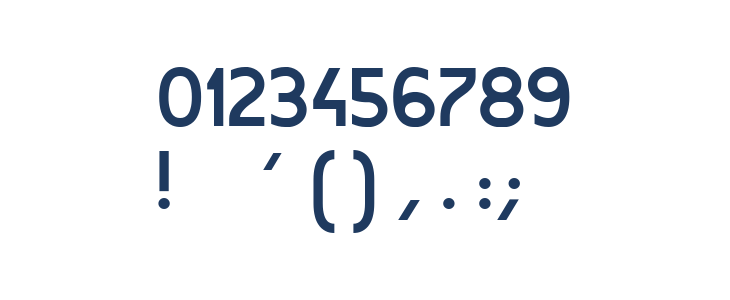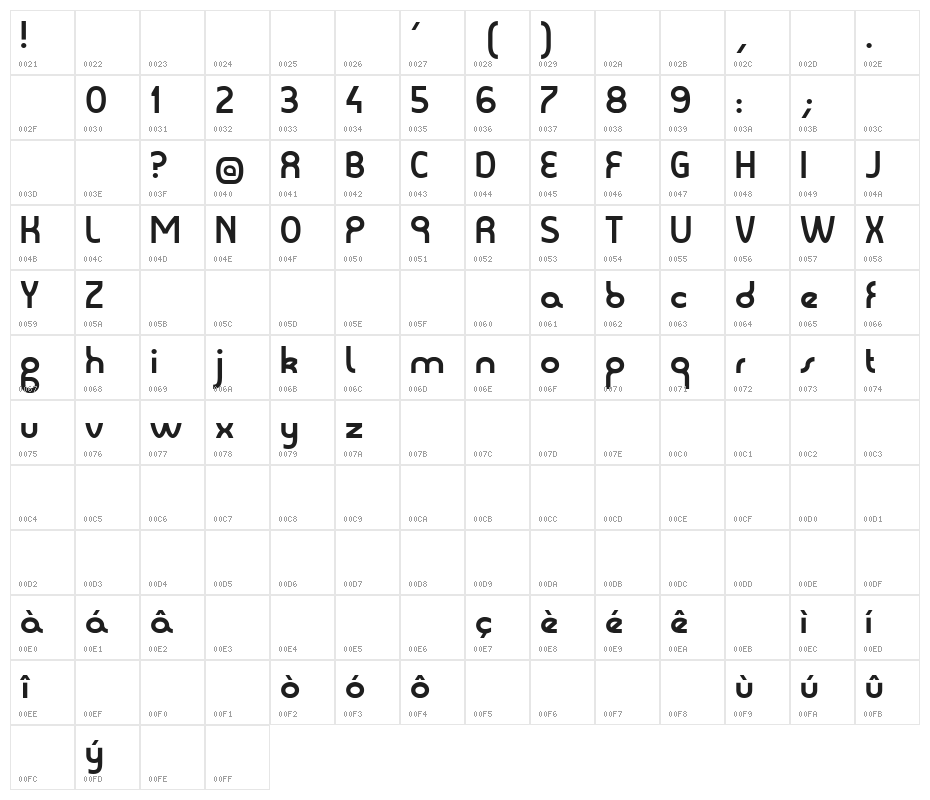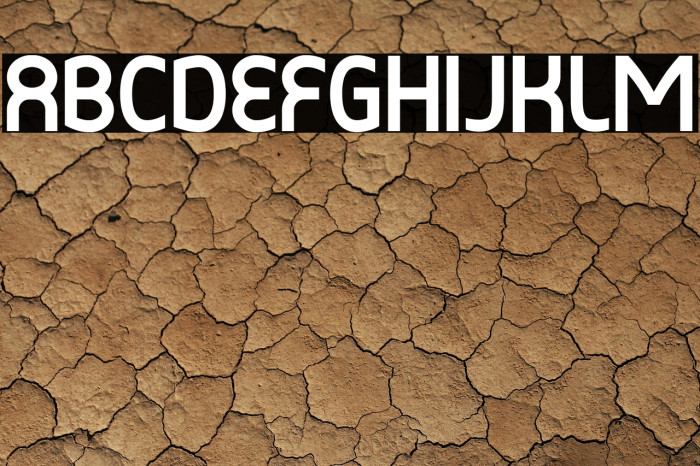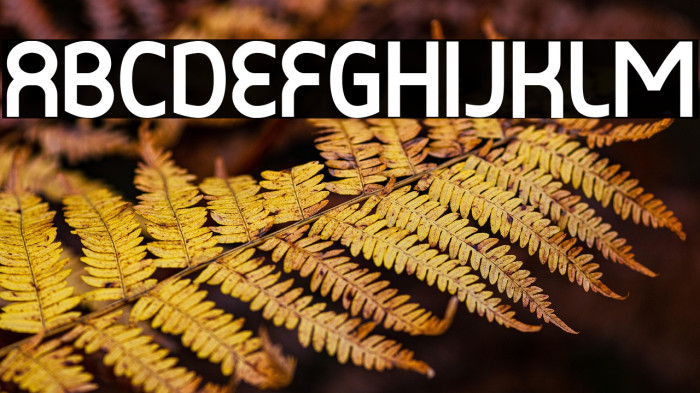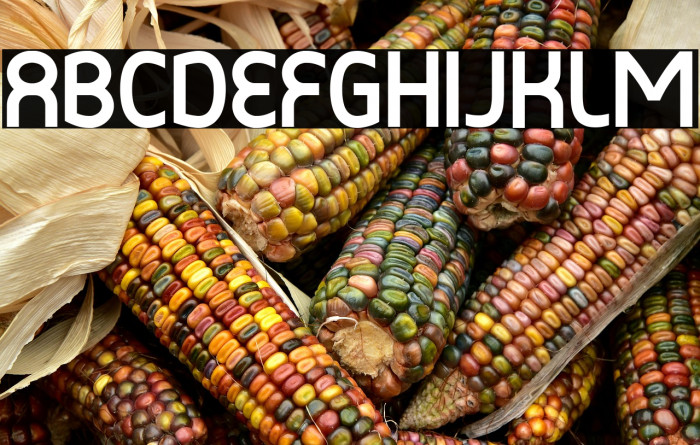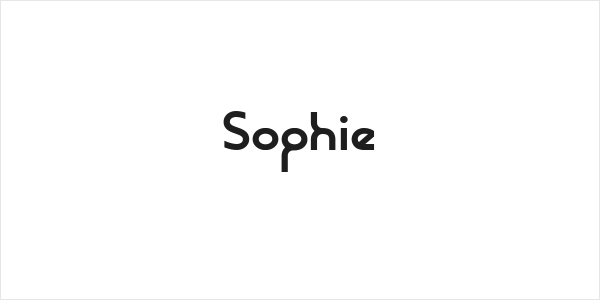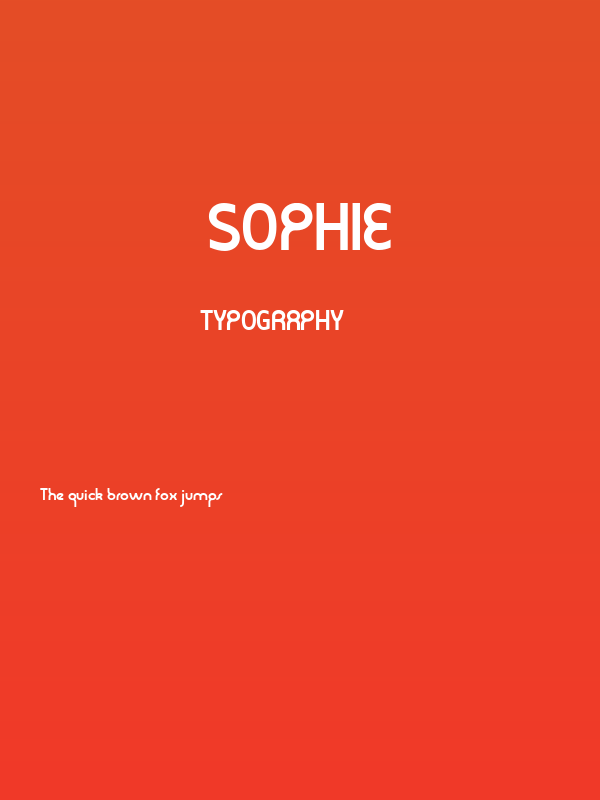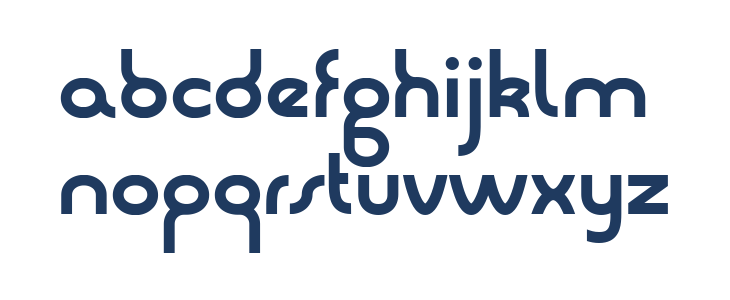
Sophie Font
Sophie Description
This font features a modern and geometric design with clean, rounded edges and a uniform stroke width. The uppercase letters are bold and structured, while the lowercase letters maintain a consistent style with a slightly softer appearance. The numerals are clear and legible, matching the overall aesthetic of the alphabet. Special characters are designed to complement the letterforms, maintaining the same geometric and rounded characteristics. The font's style is both contemporary and versatile, making it suitable for a variety of design applications.
| Use Case | Headlines, Logos, Digital interfaces |
| Proposed Projects | Ideal for branding, advertising, digital interfaces, and modern print designs. |